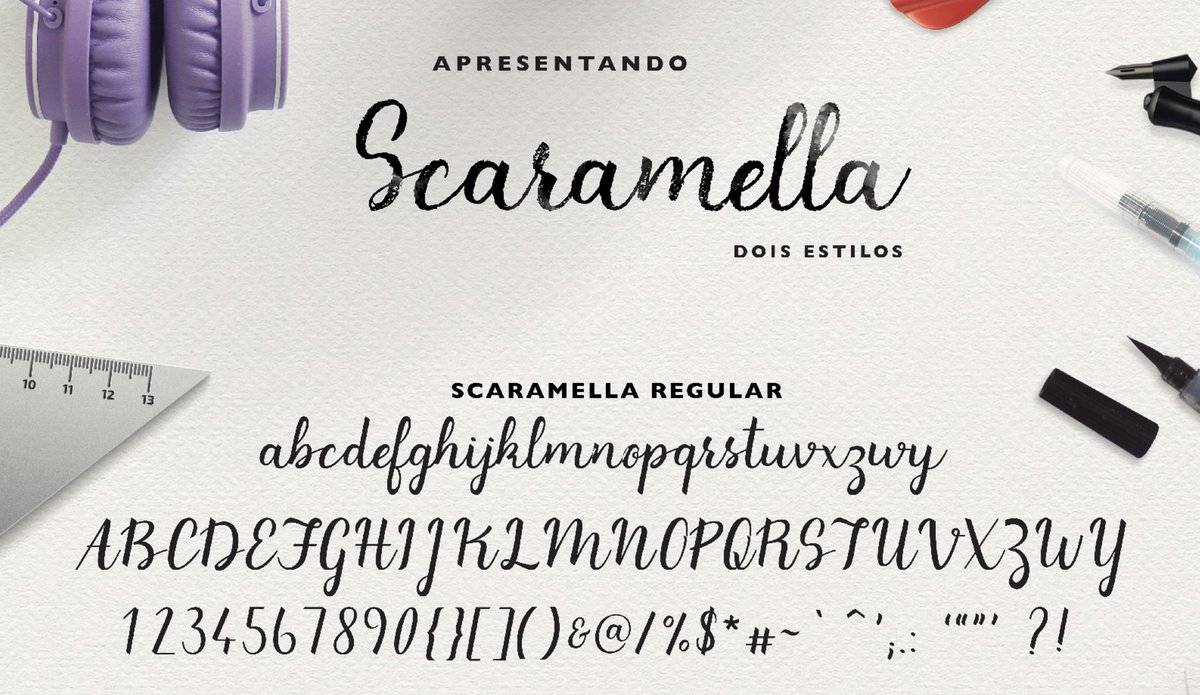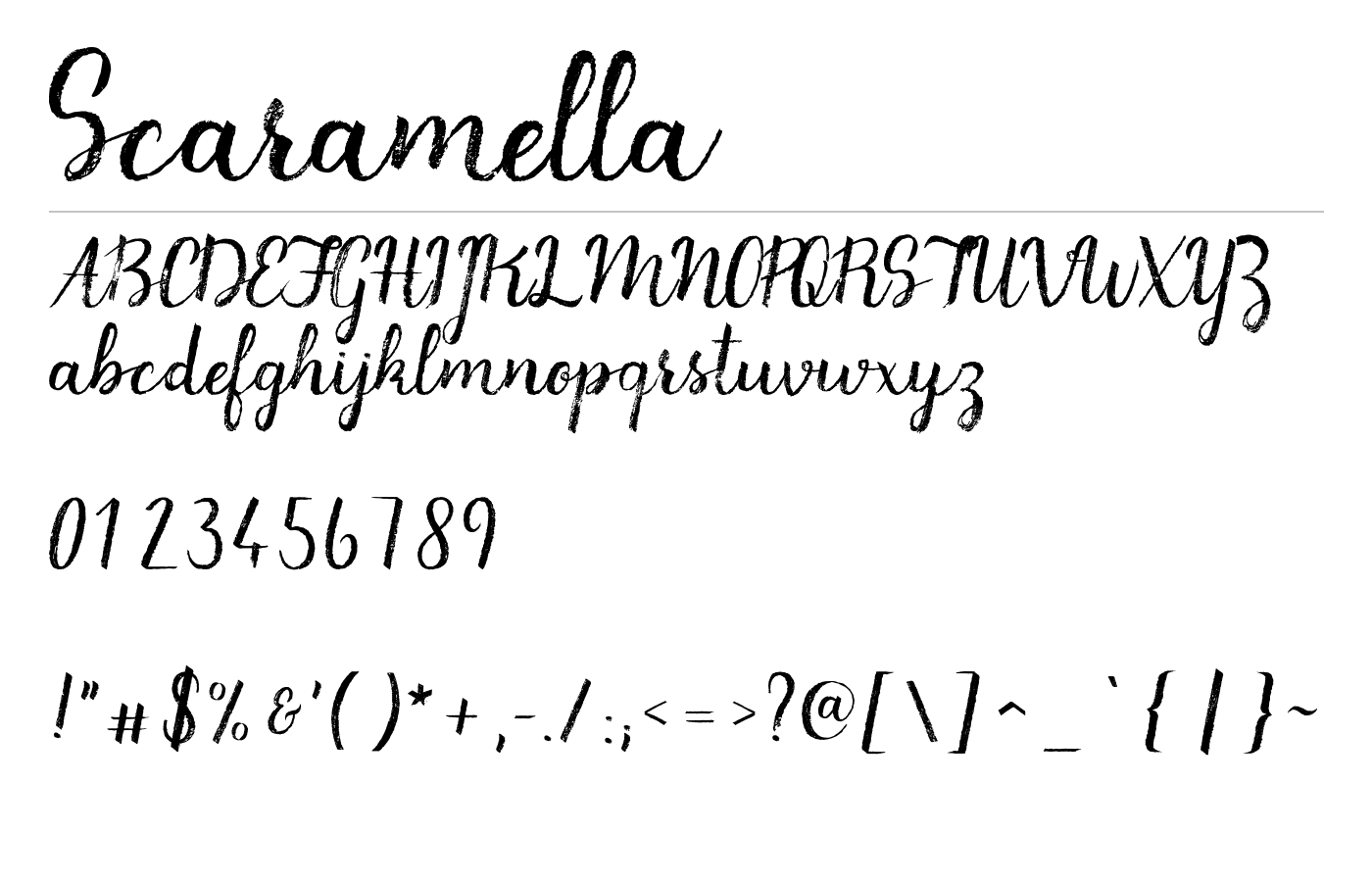
Scaramella Script is a lively and textured handwritten script font with a casual yet elegant charm, featuring irregular strokes and a slightly rough, brush-like texture. Its tall x-height and narrow letterforms lend it a modern, personal feel, making it ideal for creative projects, branding, and invitations that seek a warm, approachable, and artistic touch. This font works best in headlines, logos, or decorative text where its unique personality can stand out.
Scaramella Script Font
About Scaramella Script Font
| Font family | Scaramella Script Font |
| Release date | 2016-06-09 |
| Designer | Camila Scaramella |